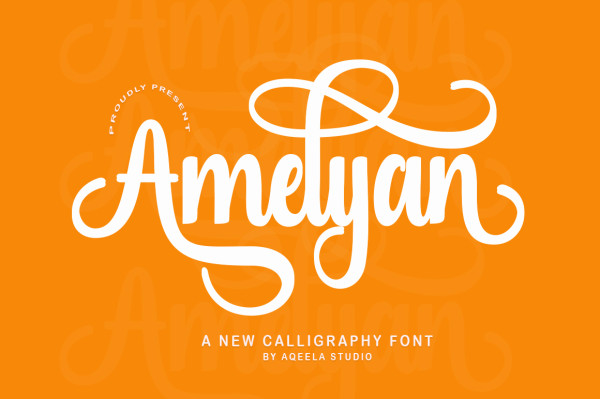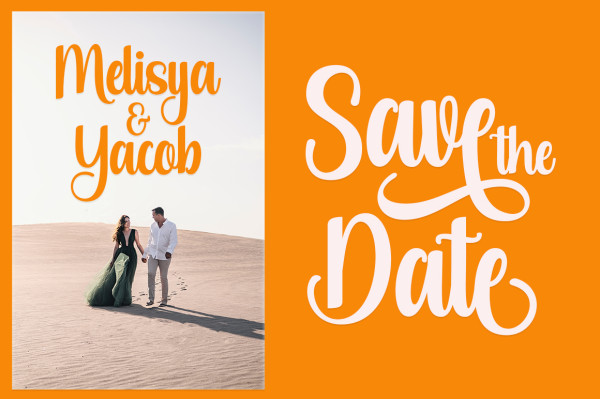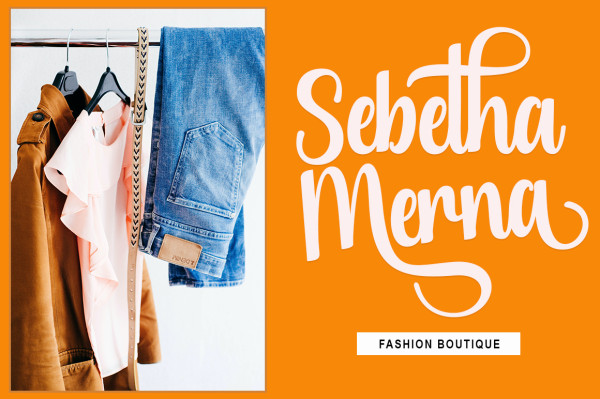
Amelyan Font is a sweet and friendly calligraphic font. Fresh and clean, this font is ideal for writing wedding invitations, cards, or any other design that might need a fun touch!
Amelyan Font
| Classification: | Calligraphy Fonts, Script Fonts |